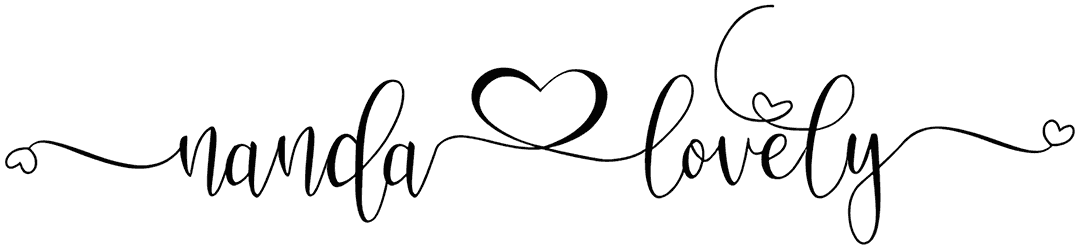
Nanda Lovely Font
Designed byBongkeng Art Studio
Nanda Lovely is for you if you’re looking for typefaces that grab readers’ attention and create suspense. The romantic feeling in the rhythmic twists of this handwritten font can create emotional and tender content for you, which will help you write friendly letters, design tattoos, or pack women’s clothes. Using this heart font, you can create a modern feeling that can be implemented in 4 styles and weights.